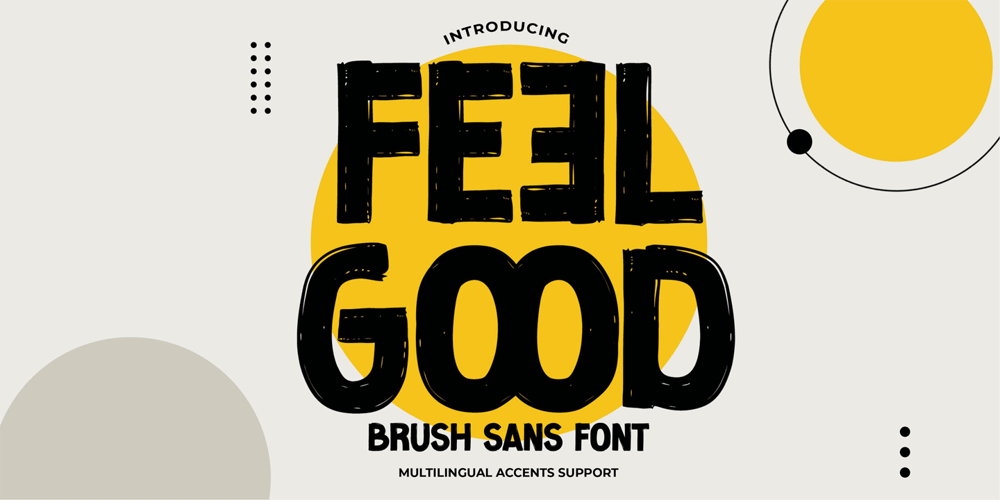
Feel Good Font Family was designed by Abdul Malik Wisnu, Anang Fibriyanto and published by Gassstype. Feel Good contains 1 styles and family package options. Here comes a New font, Feel Good is Brush Sans Font that is written casually and quickly. Letters are made with brushes on Procreate. Then crafted carefully drawn into vector format. That is why Feel Good has Stylish and strong characteristic more natural look to your text with a more modern look to your text. Feel Good is perfect for homeware designs,branding projects, Logo design, Quotes product packagingprinted quotes, invitations, cards, product packaging, headers, Logotype, Letterhead, PosterLabel, cartoon, and comic etc.